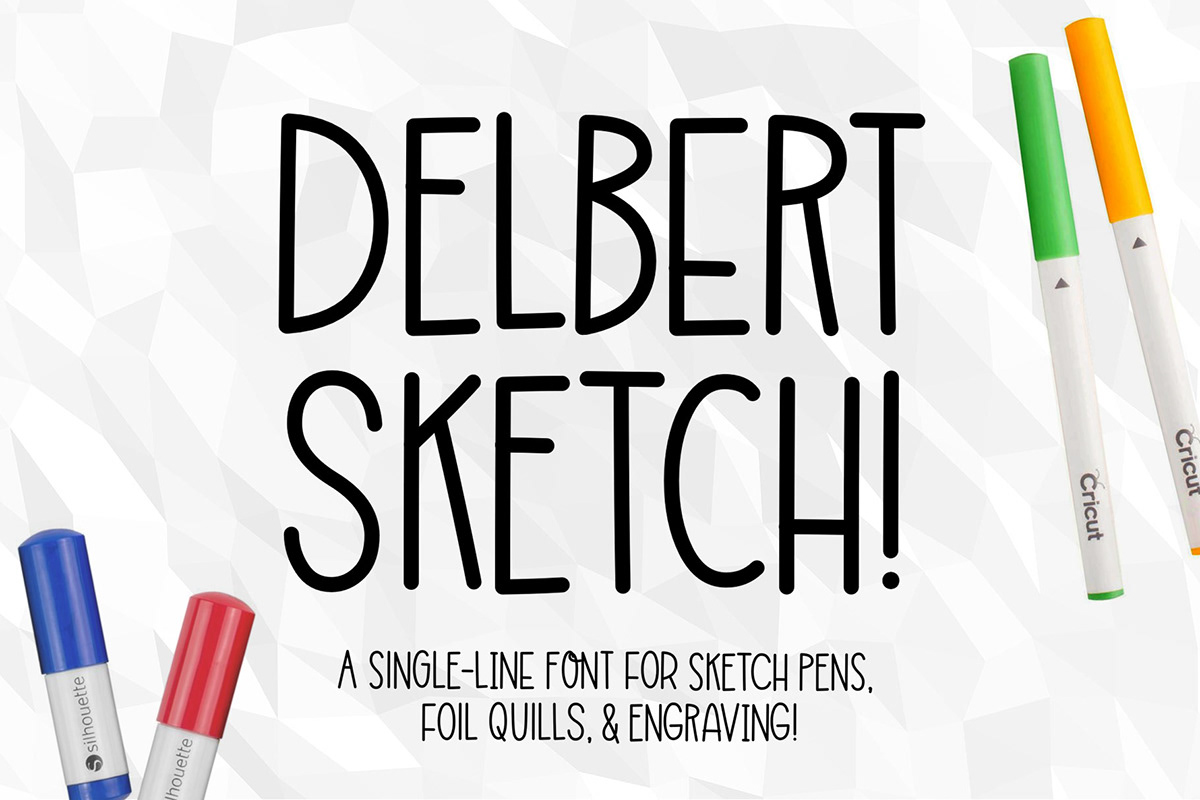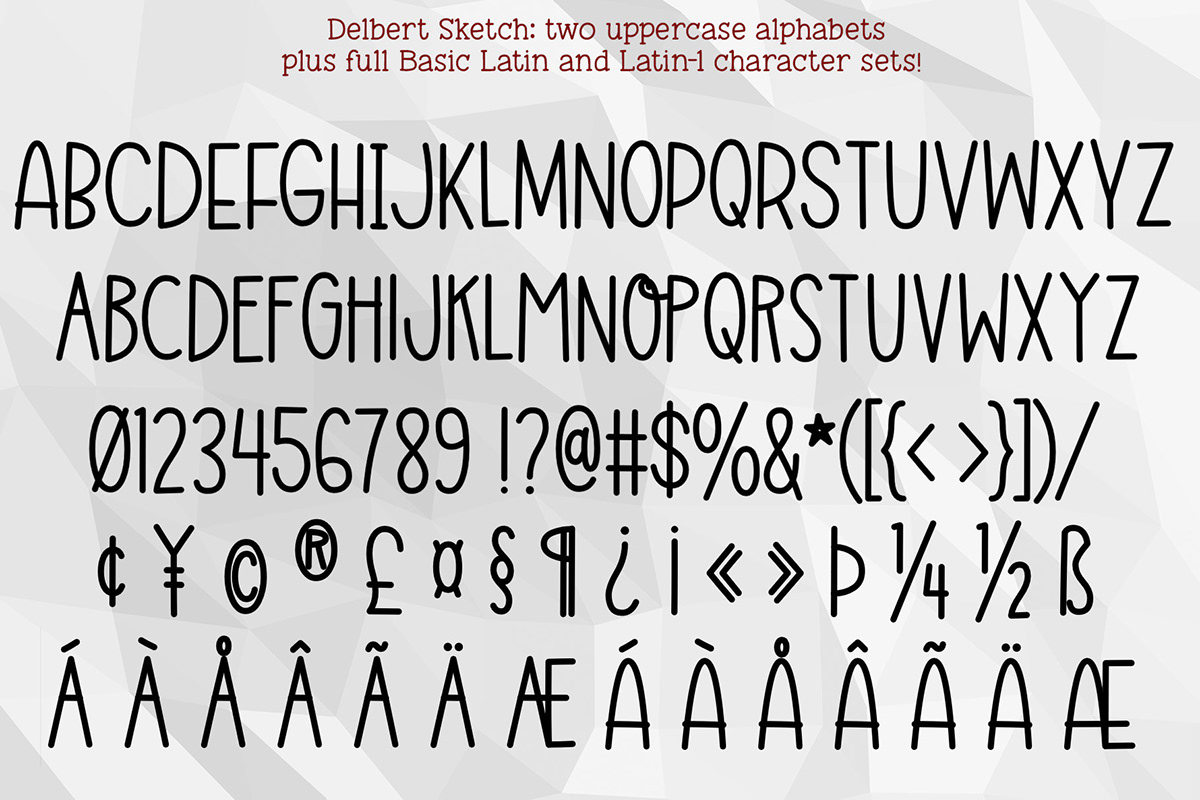
This is a first for me—a single-line sketch font meant for use with Silhouette and Cricut sketch pens, the new foil quill, engraving machines that require a single line, and more!
Please be aware, while this is a TTF font file, and installs to your computer the way any other font would, it isn't a "normal" font. If you try to use it in Photoshop or Illustrator or Word, it will look funky as heck. It may appear nearly invisible, or jagged geometric shapes will appear along the lines of the letters. That's because most of the fonts that you use with those programs are made up of outlined shapes, while this font is made of single lines. It's built for some very specific uses.
(I've even had a hard time making the images for this font, because I can't use the font in Photoshop! I've had to type out the text in my font creation program, screenshot it, then bring it into Photoshop that way. It's weird, but it worked.)
Delbert Sketch has two uppercase letter sets - one in the uppercase spots, one in the lowercase spots. It also has the full Basic Latin character set, as well as the full Latin-1 character set. I hope you enjoy it, and I'd love to see what you make with it!